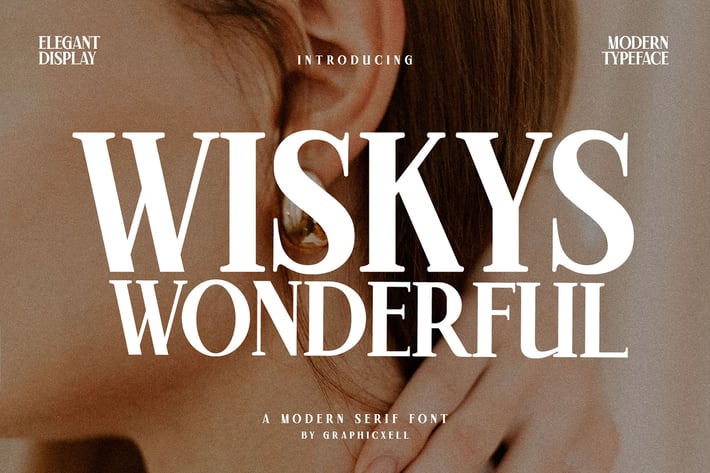
Wiskys Wonderful Serif Font
Wiskys Wonderful Serif is a playful yet elegant serif font that brings charm and warmth to your designs. It combines refined curves with friendly shapes, making it perfect for many creative uses. For example, it suits branding, editorial layouts, packaging, and social media graphics. Moreover, it stays clear and engaging in both headlines and long text passages.
Furthermore, this font offers strong legibility and visual appeal. Its balanced proportions ensure neat alignment across various mediums. Consequently, your designs look polished and inviting, whether in print or on screen. In addition, the design features a soft contrast that adds personality without distracting from your content.
Thanks to these attributes, Wiskys Wonderful Serif works beautifully in logos, labels, book covers, and invitations. Meanwhile, it also shines in headers, posters, and short passages of text. As a result, it gives your project a handcrafted feel while maintaining clean, modern style.
Key features include:
- Playful serif design with gentle curves and soft contrast
- Versatile use for both display and body text
- Extended language support for global design
- OpenType features including ligatures, alternates, and stylistic sets
- Optimized for crisp print and fast web display
Why choose Wiskys Wonderful Serif?
- Delightful style that adds character to brands
- Excellent readability, even in longer passages
- Flexible use across both print and digital
- Creative control through OpenType features
- Multilingual coverage for global projects
- Balanced charm that feels both friendly and refined
Overall, Wiskys Wonderful Serif combines warmth and sophistication in a human-centered design. Thus, it enhances your visual storytelling whether for packaging, editorials, wedding invites, or social posts. Meanwhile, it ensures clarity, style, and consistency no matter the format. If you want a font that feels personal yet professional, this typeface delivers playful elegance and practical usability.
Furthermore, this font offers strong legibility and visual appeal. Its balanced proportions ensure neat alignment across various mediums. Consequently, your designs look polished and inviting, whether in print or on screen. In addition, the design features a soft contrast that adds personality without distracting from your content.
Thanks to these attributes, Wiskys Wonderful Serif works beautifully in logos, labels, book covers, and invitations. Meanwhile, it also shines in headers, posters, and short passages of text. As a result, it gives your project a handcrafted feel while maintaining clean, modern style.
Key features include:
- Playful serif design with gentle curves and soft contrast
- Versatile use for both display and body text
- Extended language support for global design
- OpenType features including ligatures, alternates, and stylistic sets
- Optimized for crisp print and fast web display
Why choose Wiskys Wonderful Serif?
- Delightful style that adds character to brands
- Excellent readability, even in longer passages
- Flexible use across both print and digital
- Fast-loading web files for better performance
- Creative control through OpenType features
- Multilingual coverage for global projects
- Balanced charm that feels both friendly and refined
Overall, Wiskys Wonderful Serif combines warmth and sophistication in a human-centered design. Thus, it enhances your visual storytelling whether for packaging, editorials, wedding invites, or social posts. Meanwhile, it ensures clarity, style, and consistency no matter the format. If you want a font that feels personal yet professional, this typeface delivers playful elegance and practical usability.